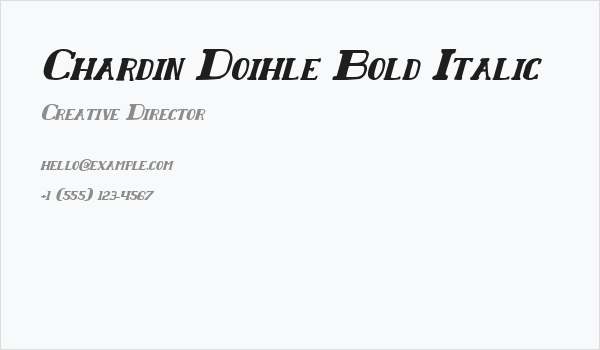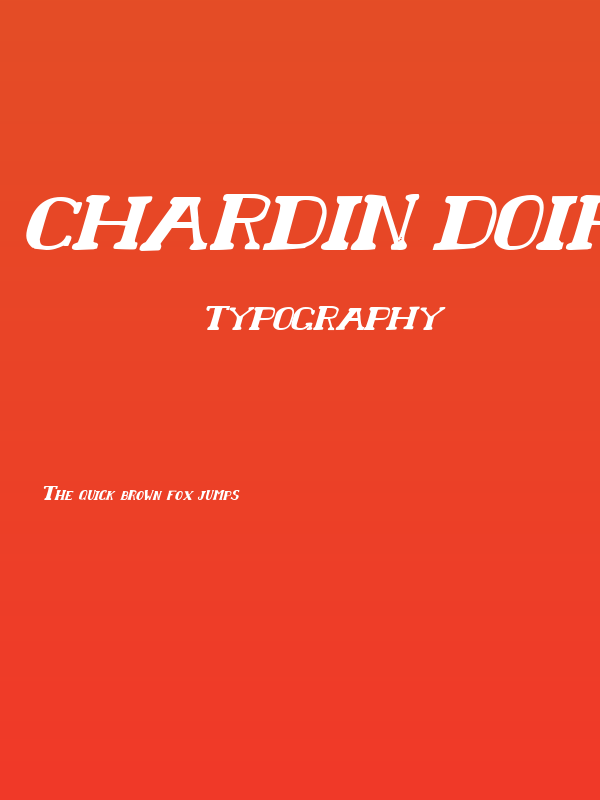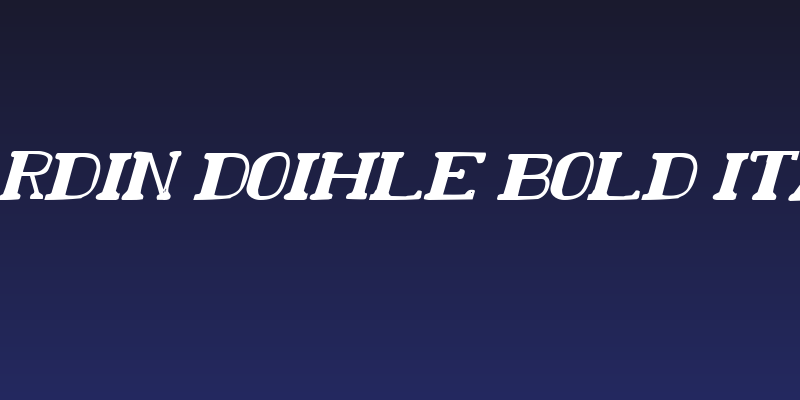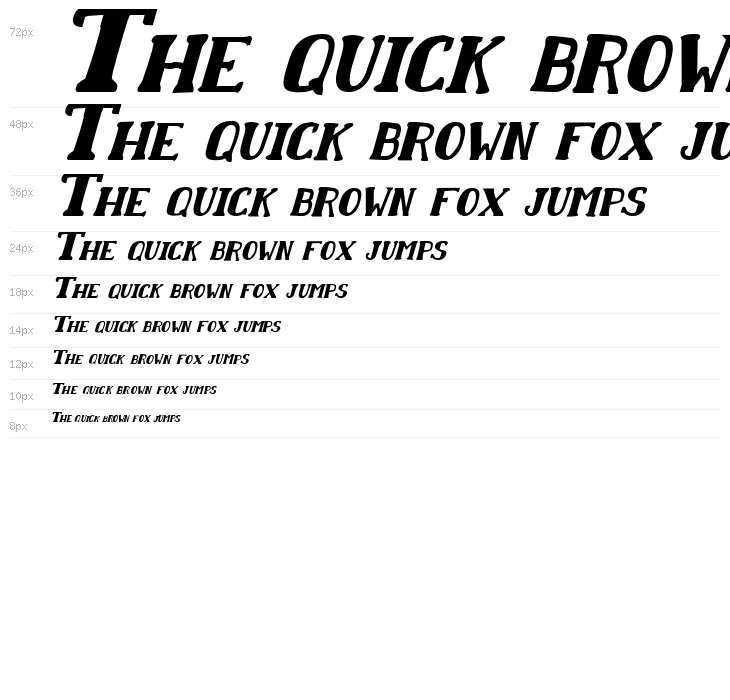
Chardin Doihle Bold Italic Font
Chardin Doihle Bold Italic Description
This font features a bold and italicized style, characterized by its dynamic and forward-leaning appearance. The letters are robust with a strong presence, making them stand out prominently. The strokes are thick and consistent, providing a sense of stability and confidence. The italic slant adds a touch of elegance and movement, enhancing the overall aesthetic. The characters are well-defined with a slight curvature, giving them a modern yet classic feel. The numbers and special characters maintain the same boldness and style, ensuring uniformity across all elements.
| Proposed Projects | Ideal for branding, advertising, and headlines where a strong and stylish impact is needed. |